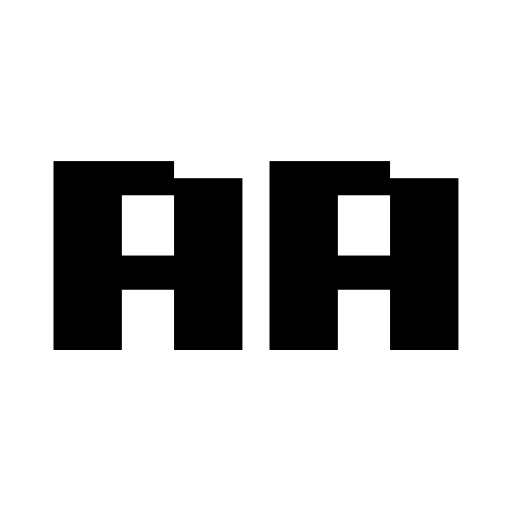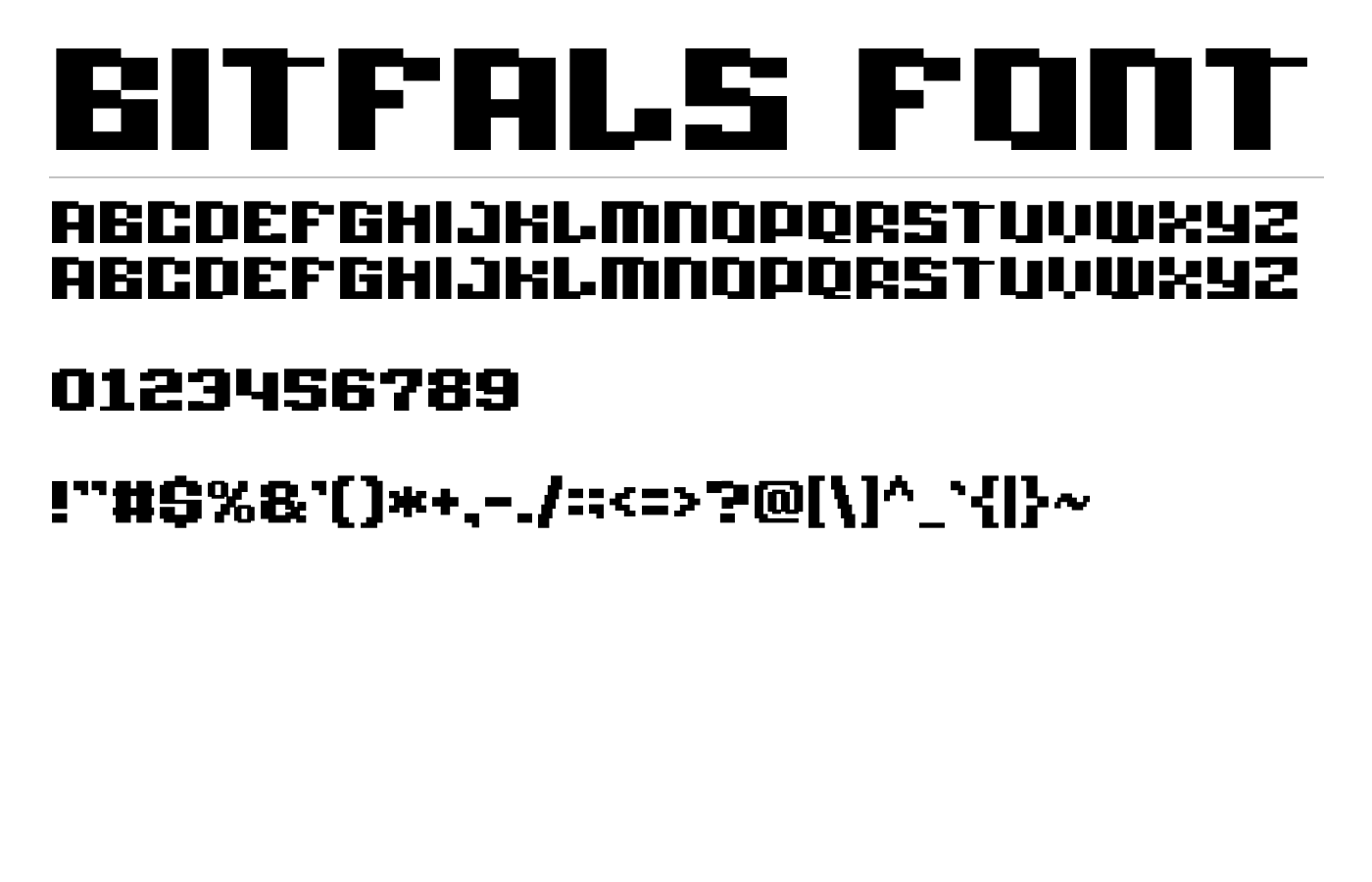
Bitfals is a bold, geometric sans serif font with a pixelated, blocky style that evokes a retro digital or video game feel. Its uniform stroke weight, squared shapes, and strong presence make it perfect for playful, tech-inspired designs, logos, or headlines where a vintage computer aesthetic is desired. This font works well in digital media, posters, and branding aiming for a nostalgic yet modern edge.
Bitfals Font
About Bitfals Font